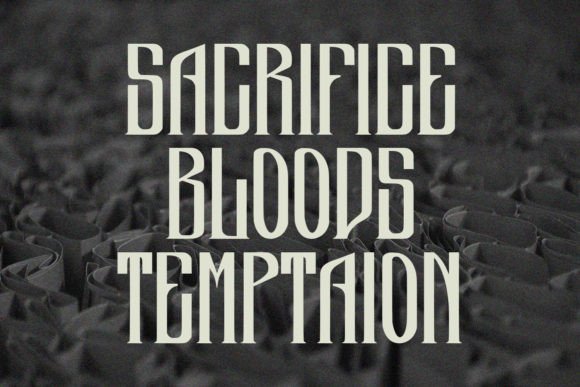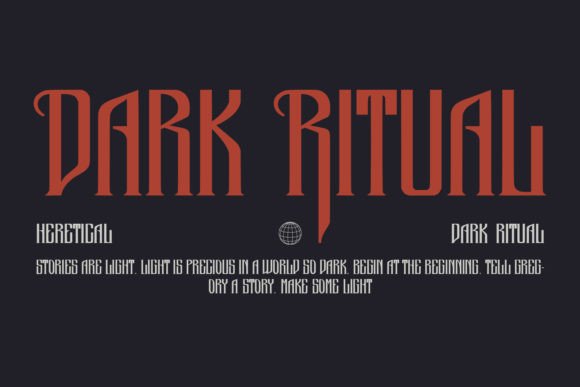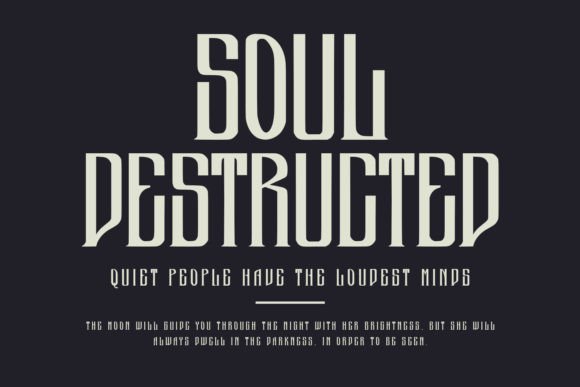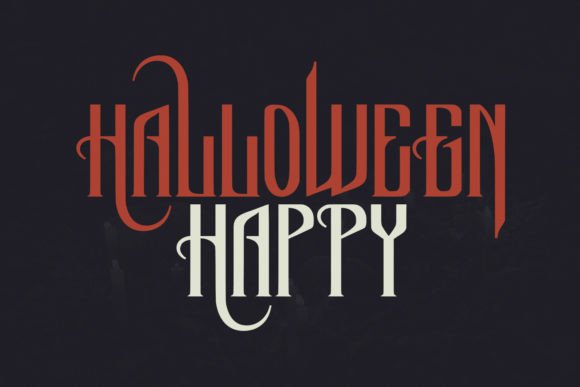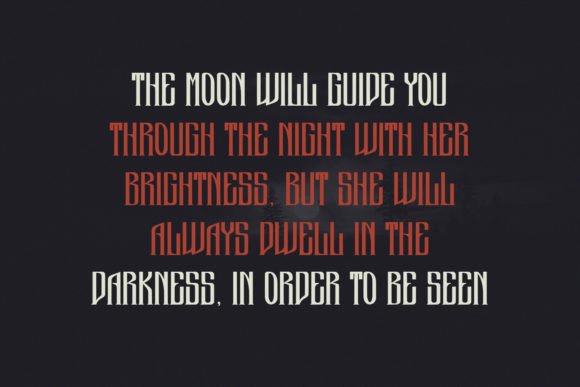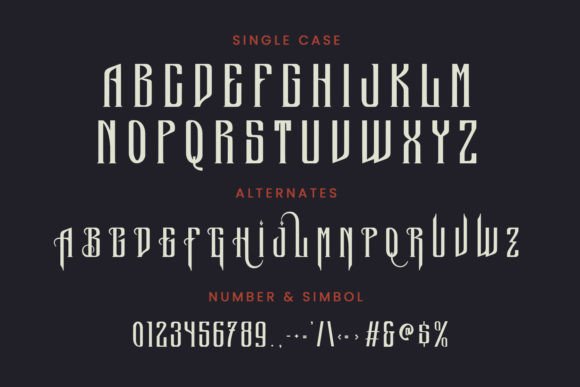
Introduction to Mife Althar Font
Mife Althar Blackletter Display Font Mife Althar Blackletter Font is a handmade Modern Victorian hand lettering, which combines modern and classic typography with some awesome alternates.
Yes, we are back to the early 1800s, bringing a classic touch to this decade This font is PUA encoded which means you can access all of the amazing glyphs and ligatures with ease.